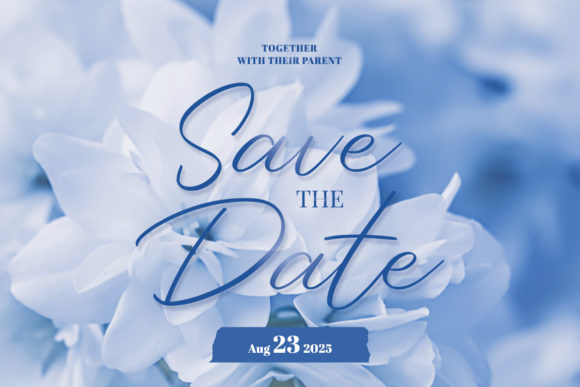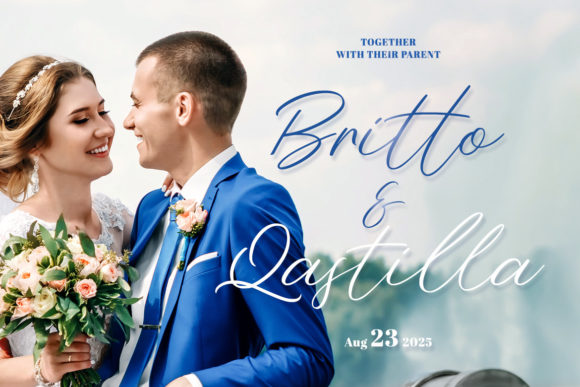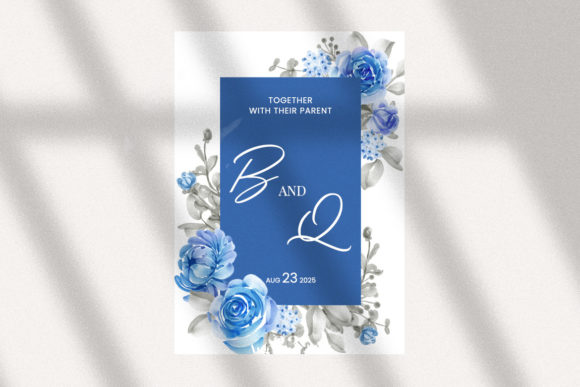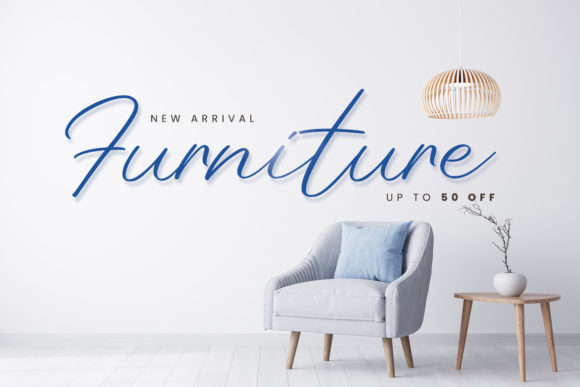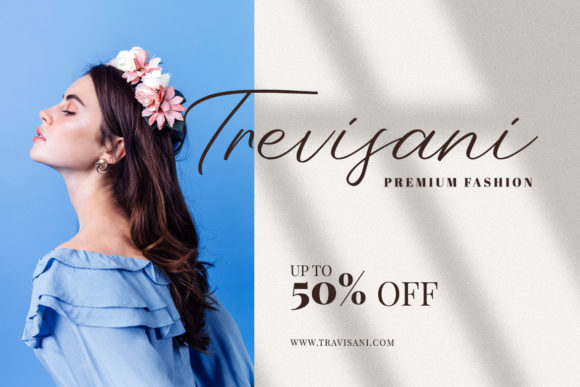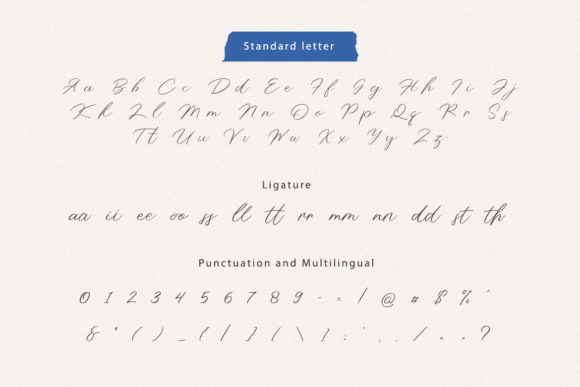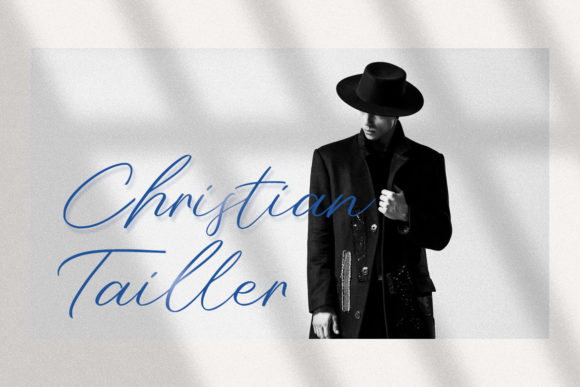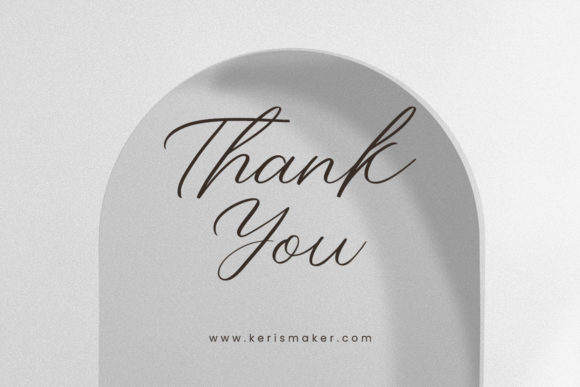
Yelenia Sareta Font
About Yelenia Sareta Font
Yelenia Sareta is a fresh and luxurious script font. It is perfect for elegant logos, upscale packaging, wedding stationery, websites, and any other projects requiring a handwritten and beautiful touch.